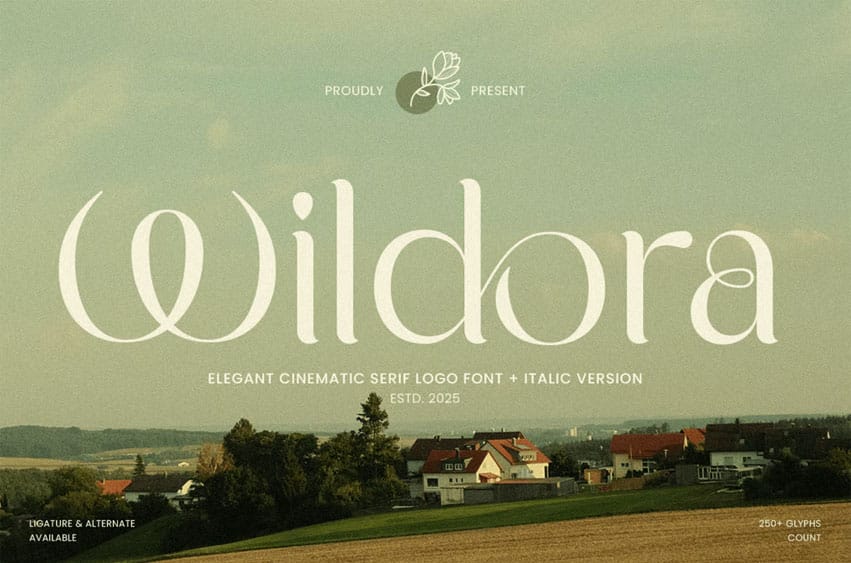
Wildora Font is an elegant, cinematic serif logo font designed for high-end branding, logos, and premium creative projects. Its refined and cinematic letterforms provide a polished, professional, and luxurious appearance, ideal for fashion, lifestyle, and editorial branding.
With its cinematic serif style, Wildora ensures readability and timeless elegance in both digital and print media, perfect for designers seeking a luxurious and sophisticated serif font.
Wildora – Elegant Cinematic Serif Logo Font Features
- Elegant and cinematic serif character set
- Available with 2 Styles, Regular and Italic versions
- Perfect for luxury branding, logos, and premium designs
- OpenType features for extra versatility
Bring cinematic elegance to your branding with Wildora – the ultimate serif font for luxurious logo designs.